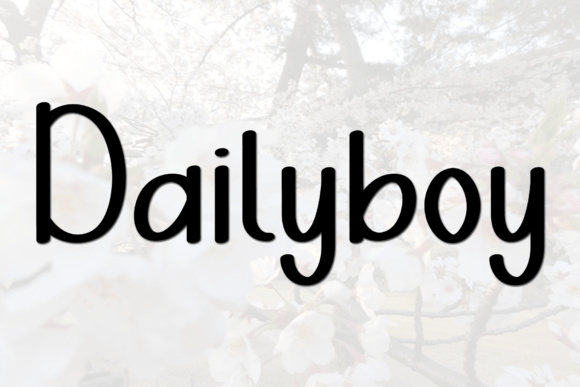
Behold the Dailyboy Font, a captivating script font that breathes elegance and beauty into your digital creations. With its flowing curves and charming imperfections, Dailyboy is the perfect choice for adding a personal touch to your designs.
Step into a realm of sophistication and grace with Dailyboy, a script font that captures the essence of handwritten artistry. Its gentle strokes and subtle variations evoke a sense of authenticity, making it ideal for crafting heartfelt wedding invitations, heartfelt thank-you cards, and captivating quotes that resonate with your audience.
Picture this: your wedding invitation adorned with Dailyboy's delicate curves, exuding an air of timeless romance. Your guests will be captivated by the font's inherent beauty, setting the tone for a truly unforgettable celebration. Or, envision your thank-you cards penned with Dailyboy's graceful strokes, expressing your gratitude with a touch of elegance that leaves a lasting impression.
The versatility of Dailyboy extends beyond the realm of personal correspondence. Unleash your creativity and let Dailyboy enhance your logos, business cards, and marketing materials. Its inherent charm adds a touch of distinction, making your brand stand out from the crowd. Whether you're crafting a logo that exudes professionalism or designing business cards that command attention, Dailyboy is your perfect companion.
The possibilities are endless with Dailyboy. Its adaptability shines in the world of social media, where eye-catching visuals reign supreme. Instagram posts, Facebook ads, and Pinterest pins come alive with Dailyboy's enchanting presence, capturing the attention of your audience and leaving them craving more.